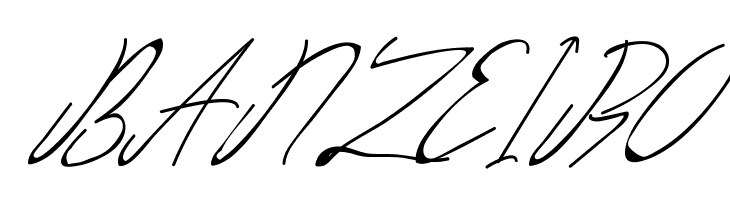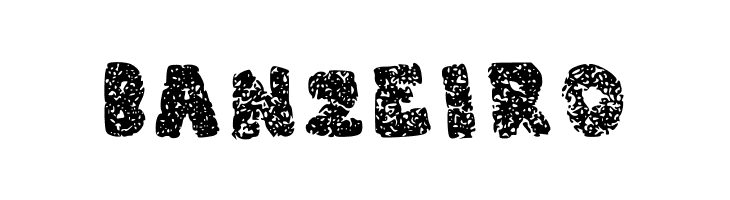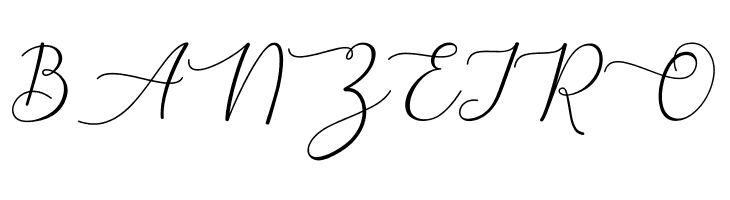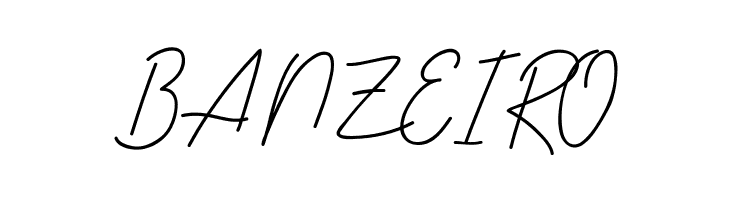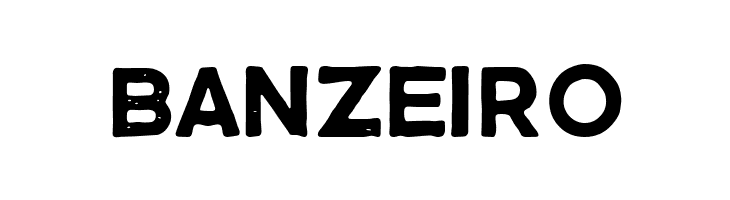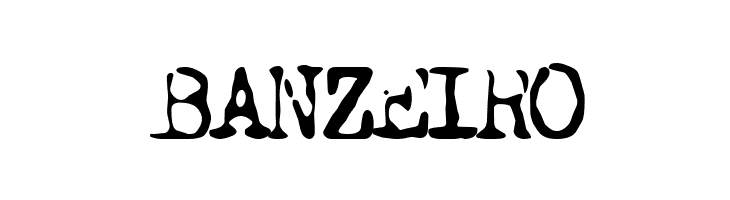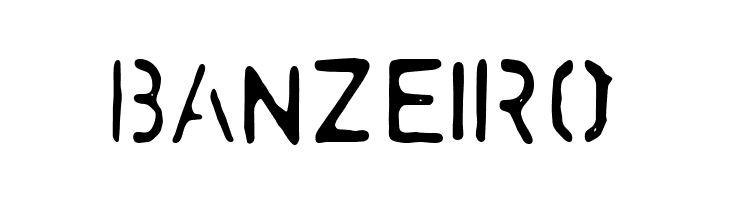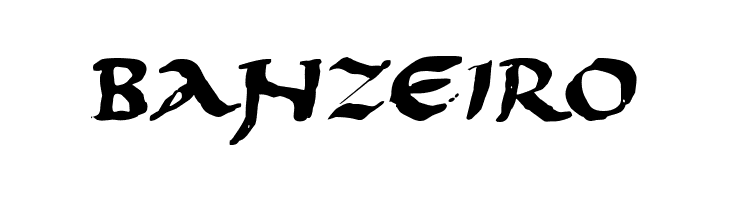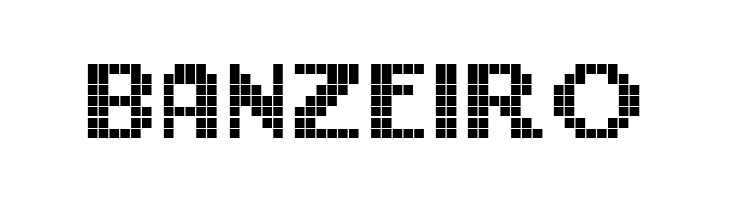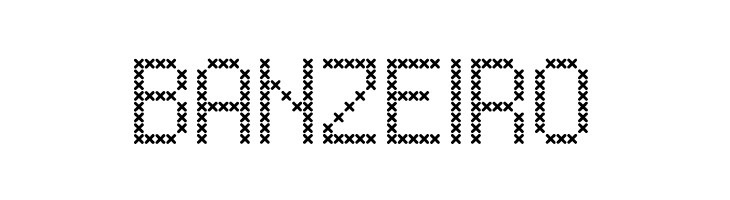
A sophisticated, elegant handwritten font with fluid, continuous strokes.
A bold, Gothic-style Blackletter font with sharp, angular lines and intricate detailing.
Silhouette illustration font with vintage, nostalgic scenes.
A fluid, cursive font with a natural, handwritten style.
A playful, casual handwritten font with smooth, flowing lines and varying stroke widths.
A bold, modern font with geometric influences and strong visual impact.
A graceful and elegant script font with fluid, interconnected strokes.
A decorative font with letters designed to resemble lizards, featuring elaborate and whimsical details.
A distressed, stencil-like font with a vintage, grunge aesthetic.
A modern, dotted font with geometric precision and playful style.
A futuristic, geometric font with rounded edges and a modular design.
Bold geometric numerals paired with clear, functional media and utility icons.
A decorative font with a cross-stitch pattern, ideal for festive designs.
A decorative font with a cross-stitch pattern, ideal for crafty designs.
A bold, distressed stencil-style font with rugged, uneven characters.
A bold, distressed font with a vintage, rugged style.
A bold, playful font with rounded edges and a friendly appearance.
A bold, hand-drawn font with an artistic and playful style.
A bold, hand-drawn font with textured strokes and a playful, artistic style.
A bold, distressed font with a rugged, hand-drawn texture.
A bold, playful font with rounded edges and a bubbly appearance.
A bold, textured, and italicized font with a vintage, distressed style.
A bold, distressed font with a rugged, grunge-inspired style.
A bold, blackletter-style font with intricate, angular strokes and a medieval flair.
A pixelated, retro-style font with a digital aesthetic.
A pixelated, grid-based font with a retro digital aesthetic.
A bold, distressed font with a rugged, vintage appearance.
A bold, distressed font with a vintage, textured appearance.
A bold, distressed font with a vintage, industrial feel.